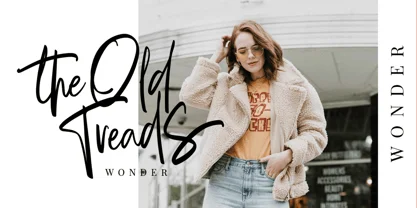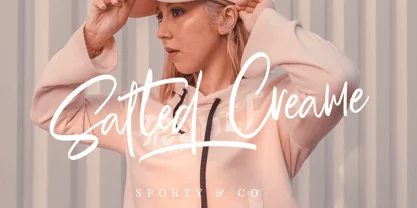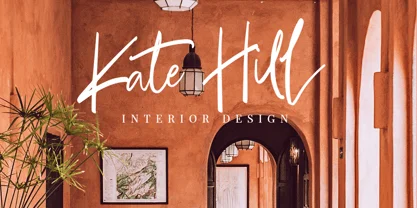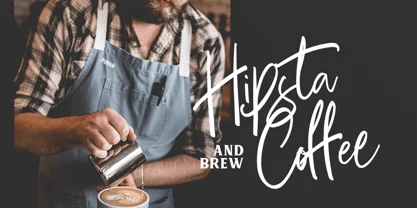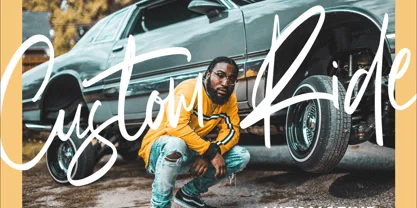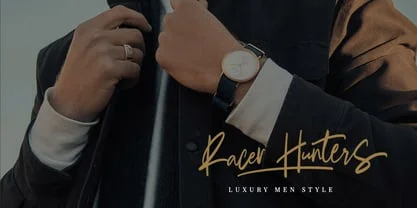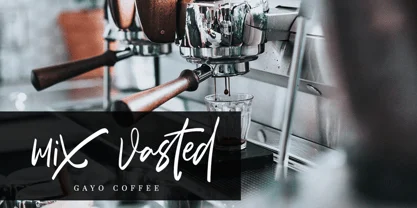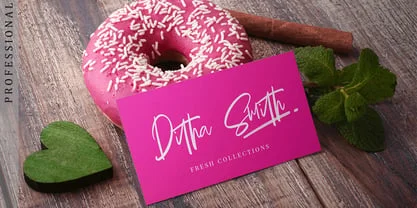
Brilliant Beautiful Script Font
A good typeface communicates tone before a single word is read. Brilliant Beautiful Script achieves this through consistent type colour across continuous text. The typeface brings an elegant, calligraphic sensibility to a broad range of creative disciplines, with controlled contrast that rewards close inspection that holds up whether the work is print-first or screen-first.
In practice, Brilliant Beautiful Script proves particularly effective for wedding invitations, high-end cosmetic packaging, boutique logos, advertising campaigns, signage systems. Designers reaching for it find that the type decisions feel resolved rather than laboured — a useful quality when client timelines are tight.
The range of applications extends to product labels, brand identity systems, event signage, fragrance labels. That breadth is deliberate: the proportions and spacing were stress-tested across a wide range of mock briefs before the typeface was finalised.
At smaller sizes the design retains its character without becoming cluttered. This resilience across scales makes Brilliant Beautiful Script equally suitable for a business card and a billboard — a useful property when assets must scale across a campaign.
Graphic designers working on identity systems find Brilliant Beautiful Script a reliable choice for projects that demand both personality and restraint. The design avoids the self-conscious quirkiness that dates quickly, settling instead for considered distinctiveness that holds up over time.